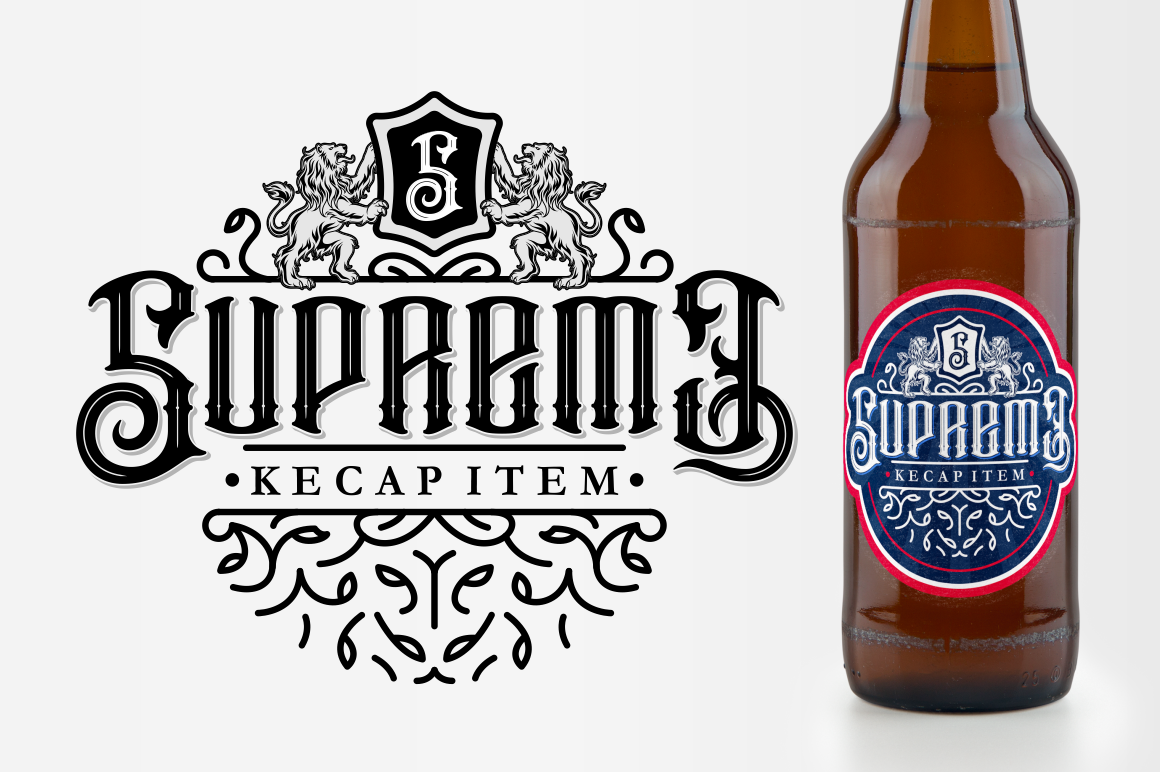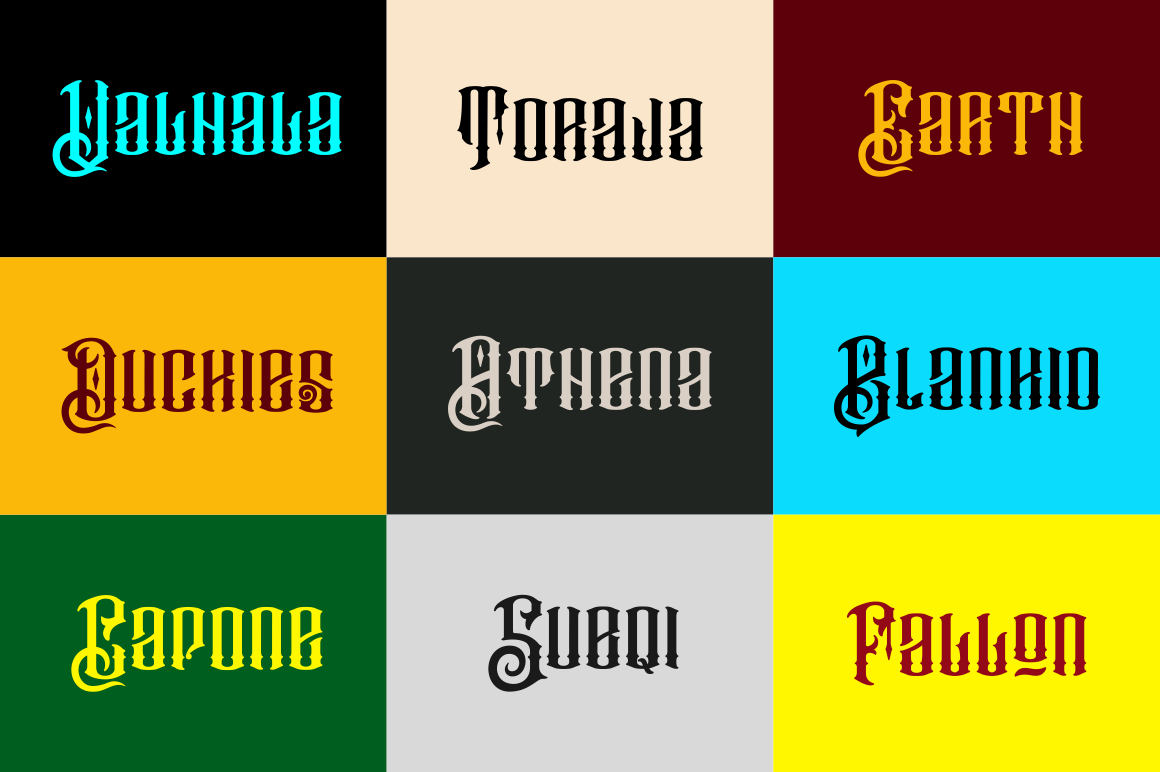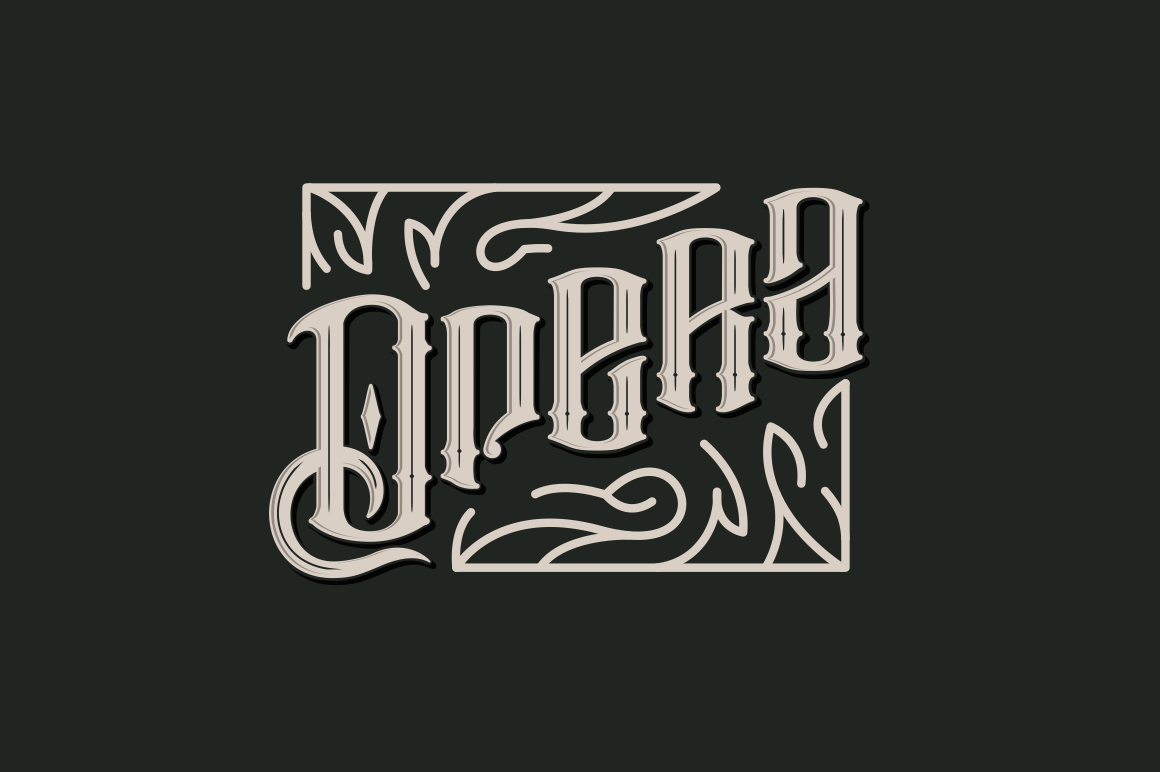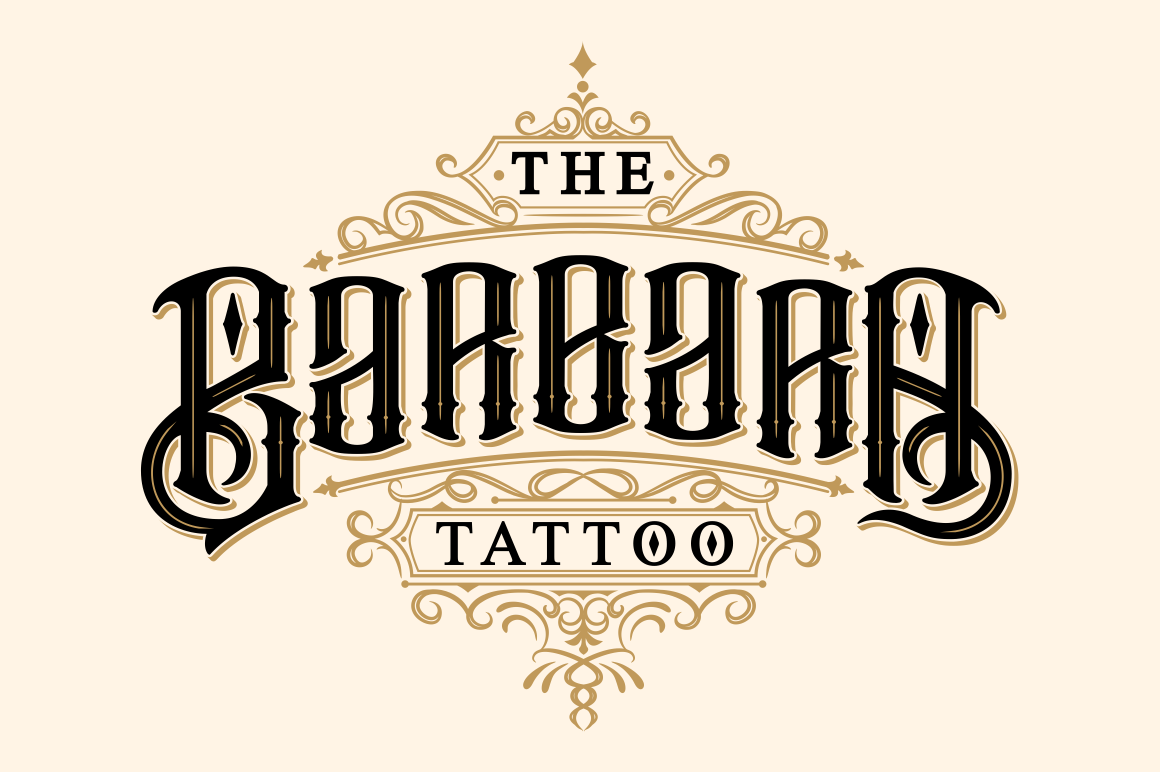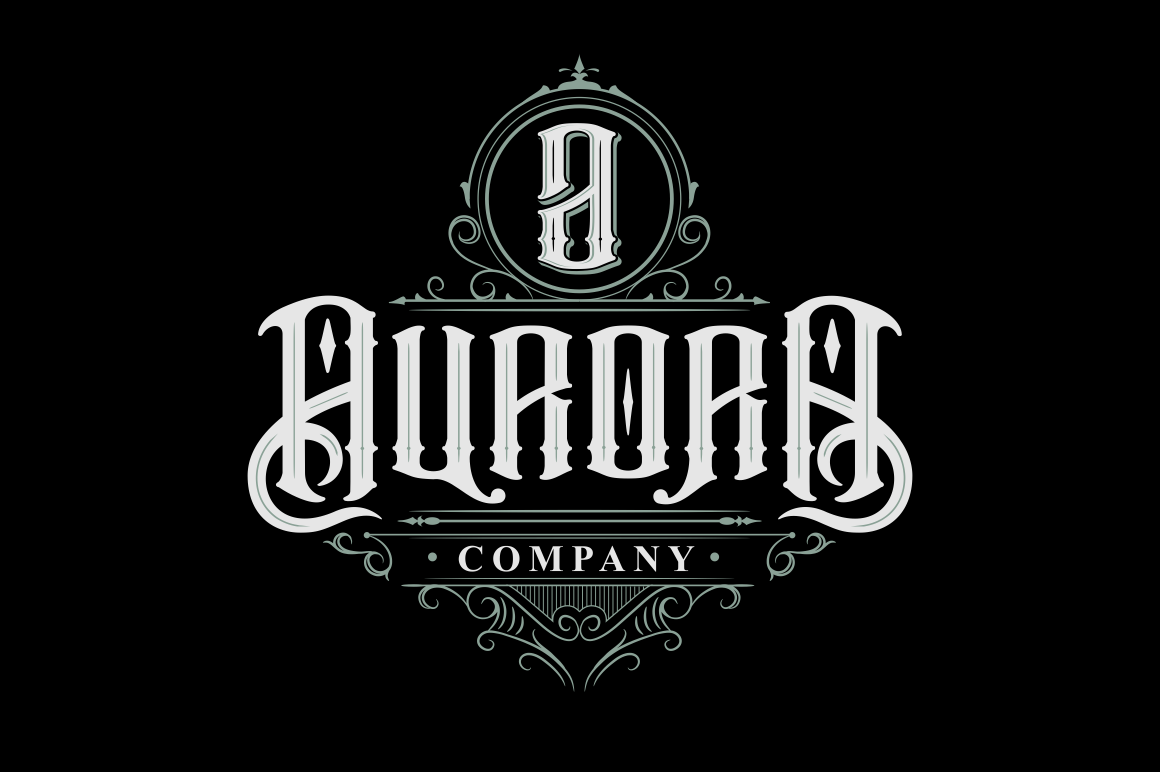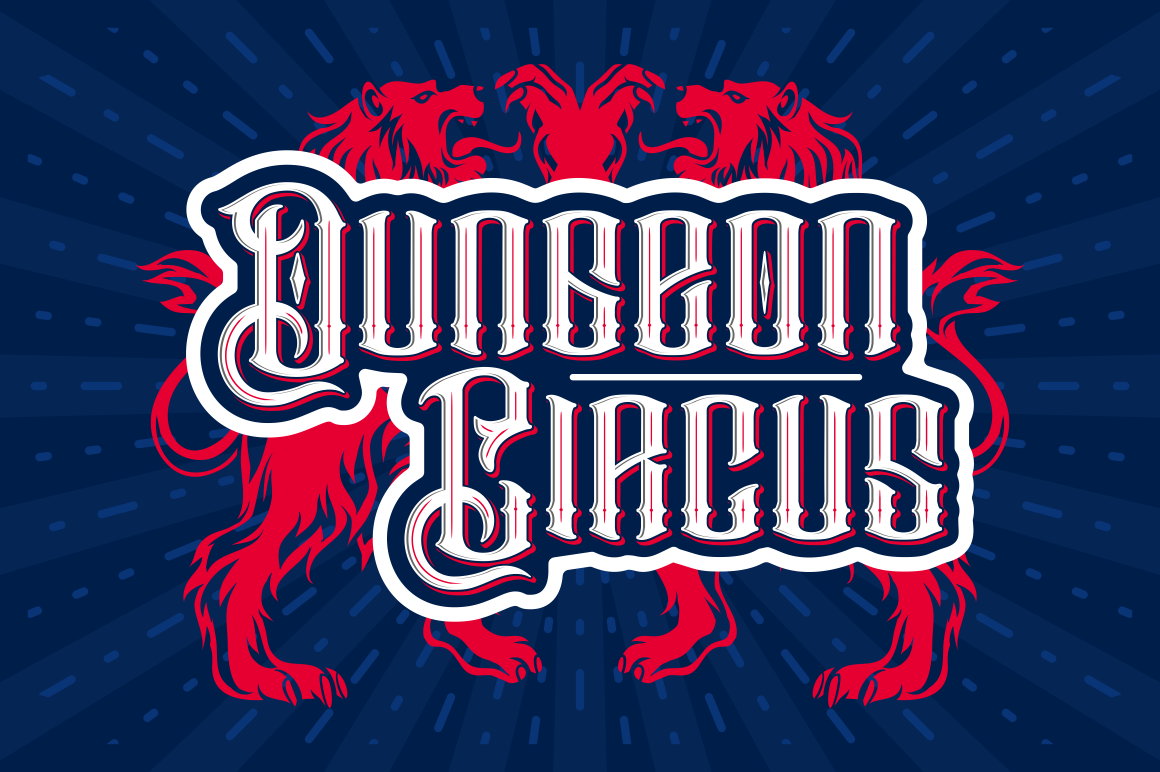
Discover the Elegance of Barakah Font: A Victorian-Inspired Masterpiece
In the realm of typography, few fonts manage to capture the essence of vintage elegance while also exuding a bold and modern appeal. Barakah Font, inspired by vintage tattoo designs, is one such marvel. This multi-layered Victorian font has emerged as a stunning and eye-catching typeface, suitable for a wide range of design projects, from modern digital creations to classic print designs.
The Inspiration Behind Barakah
Barakah’s design roots are deeply embedded in the rich history of Victorian-era typography and the art of vintage tattooing. This unique blend gives Barakah its distinctive romantic and bold formation. The Victorian era, known for its ornate and intricate designs, has been a significant influence on the font’s elaborate and detailed structure. Meanwhile, the vintage tattoo design inspiration adds a layer of ruggedness and timeless appeal, making Barakah stand out in the world of typography.
Key Features of Barakah Font
• Multi-Layered Design: One of the standout features of Barakah is its multi-layered design. This allows designers to play with different combinations, creating a unique look for their projects.
• Romantic and Bold Formation: The font’s romantic yet bold characters make it perfect for designs that require a touch of elegance and strength.
• Attention to Detail: Barakah’s design showcases meticulous attention to detail, ensuring that every letterform is not only beautiful but also highly legible.
• Versatility: Whether you’re working on a modern digital project or a classic print design, Barakah’s versatility makes it an excellent choice.
Use Cases for Barakah Font
The applications of Barakah Font are vast and varied. Here are some of the most popular use cases:
• Branding and Logos: Create a memorable brand identity with Barakah’s unique and captivating letterforms.
• Invitations and Announcements: Add a touch of elegance to your invitations, announcements, and other stationery with Barakah’s classic yet contemporary design.
• Tattoos and Art: Given its inspiration from vintage tattoos, Barakah is a natural fit for tattoo artists and designers looking for typography that resonates with this art form.
• Web and Digital Design: Use Barakah to give your website, app, or digital project a distinctive and engaging visual appeal.
Why Designers and Crafters Love Barakah
Barakah has quickly become a favorite among designers and crafters for several reasons:
• Aesthetic Appeal: Its stunning Victorian-inspired design coupled with vintage tattoo elements makes it a beautiful addition to any design project.
• Easy to Use: Despite its intricate design, Barakah is user-friendly, making it accessible for designers of all skill levels.
• Support for Various Projects: From digital to print, and from modern to classic designs, Barakah’s flexibility makes it suitable for a broad spectrum of projects.
Barakah Font, with its vintage tattoo-inspired and Victorian-style elegance, offers a fresh and exciting option for designers and crafters looking to elevate their projects. Its unique blend of romanticism, boldness, and intricate detail sets it apart in the world of typography. Whether you’re creating a logo, crafting an invitation, or designing a digital interface, Barakah is sure to add a touch of class and distinction. Add Barakah, a stunning display font, to your collection today and unlock a world of creative possibilities.